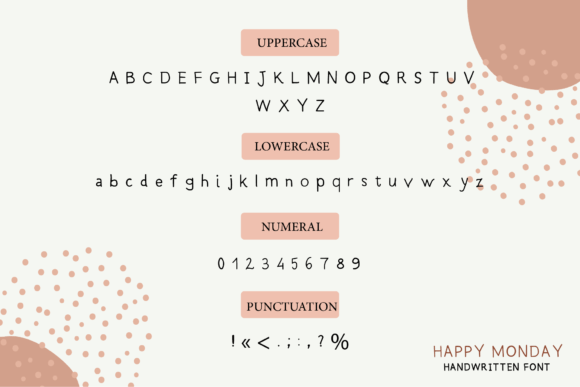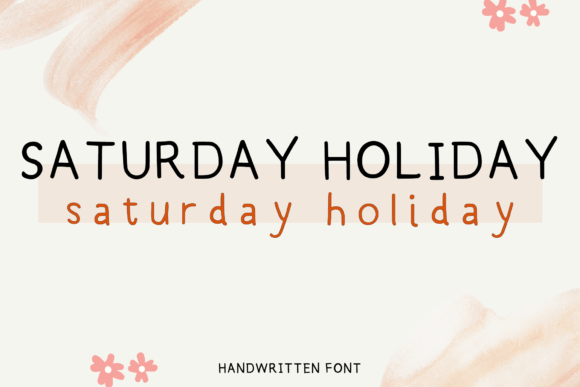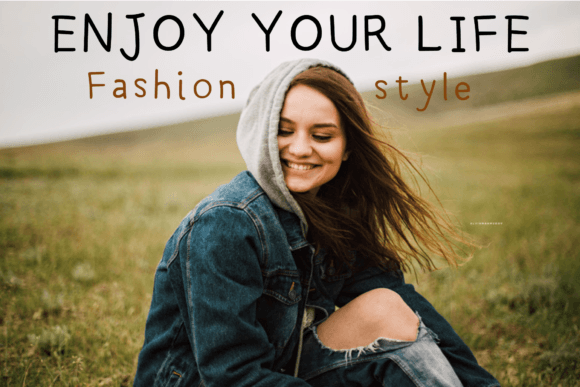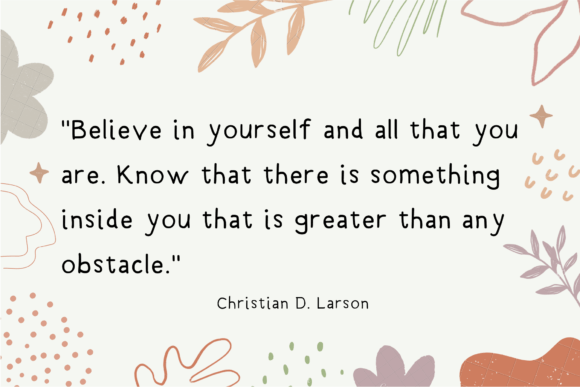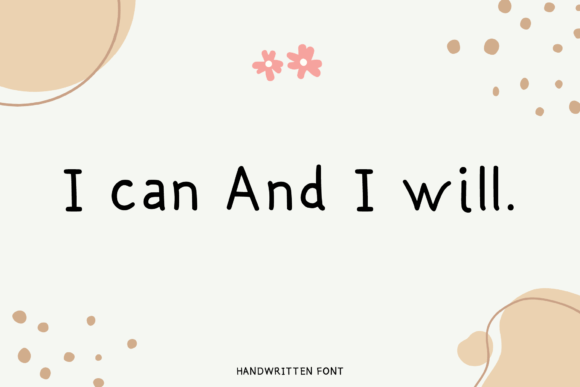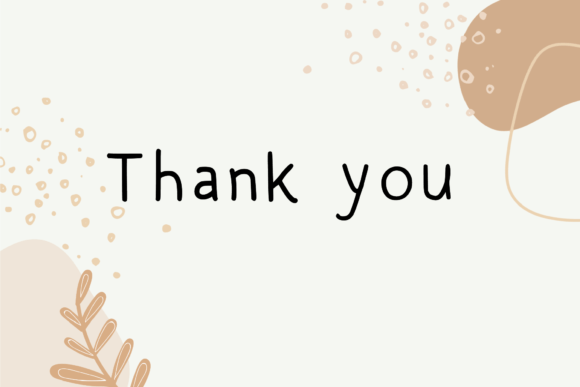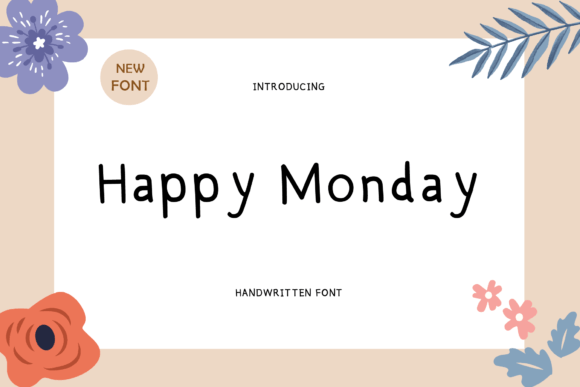
Introducing Happy Monday Font: The Sweet and Friendly Handwritten Font
Are you tired of using the same old fonts for your designs? Do you want to add a touch of sweetness and friendliness to your creations? Look no further than Happy Monday Font! This beautiful handwritten font is perfect for designers and crafters who want to add a personal and playful touch to their work.
What makes Happy Monday Font special?
Happy Monday Font is a unique and charming font that is sure to make your designs stand out. Here are just a few reasons why:
- Handwritten with love: Happy Monday Font is a handwritten font, which means that every letter is carefully crafted to give it a personal and human touch.
- Fun and relaxed: This font has a fun and relaxed vibe that’s perfect for creating designs that are playful and carefree.
- Unique and beautiful: Every letter in Happy Monday Font has a unique and beautiful touch, which will make your designs come alive!
Perfect for a variety of design projects
Happy Monday Font is versatile and can be used for a wide range of design projects, including:
- Wedding invitations: Add a touch of romance and whimsy to your wedding invitations with Happy Monday Font.
- Cards: Create beautiful and personalized cards for birthdays, holidays, and other special occasions.
- Logos: Use Happy Monday Font to create a unique and memorable logo for your business or brand.
- Quotes: Add a touch of inspiration and motivation to your quotes with this beautiful font.
- Any other design project: Happy Monday Font is perfect for any design project that needs a personal and playful touch.
Why choose Happy Monday Font?
Here are just a few reasons why Happy Monday Font is the perfect choice for designers and crafters:
- Easy to read: Happy Monday Font is clear and easy to read, making it perfect for designs that need to be functional as well as beautiful.
- Highly versatile: This font can be used for a wide range of design projects, from digital designs to print projects.
- Unique and original: Happy Monday Font is a one-of-a-kind font that will help your designs stand out from the crowd.
Tips for using Happy Monday Font
Here are a few tips for getting the most out of Happy Monday Font:
- Use it with a personal touch: Happy Monday Font is perfect for designs that need a personal touch. Use it to create designs that are unique and special.
- Experiment with different colors: This font looks great in a variety of colors. Experiment with different colors to find the one that works best for your design.
- Pair it with other fonts: Happy Monday Font pairs well with other fonts. Try pairing it with a bold font for a fun and playful look.
| Font Name | Happy Monday Font |
| Author | Super Design Store |
Happy Monday Font is a beautiful and versatile font that’s perfect for designers and crafters who want to add a touch of sweetness and friendliness to their designs. With its unique and beautiful touch, this font is sure to make your designs come alive! Whether you’re creating wedding invitations, cards, logos, or quotes, Happy Monday Font is the perfect choice.